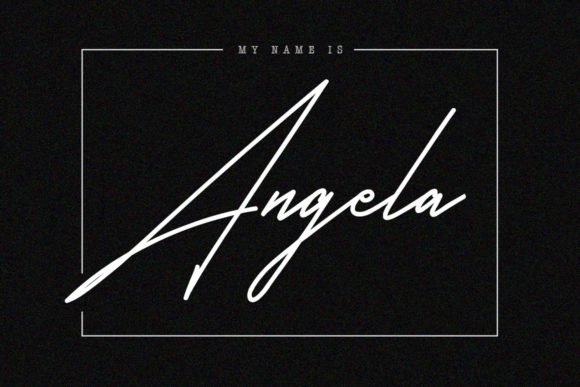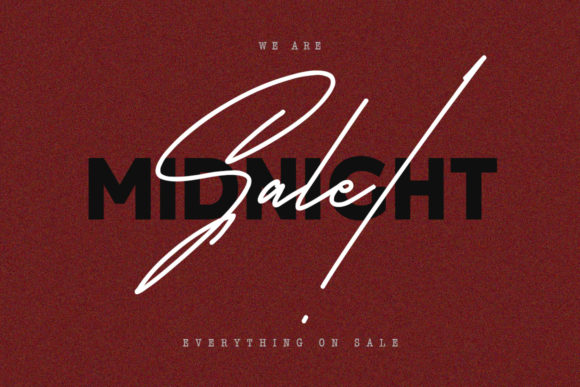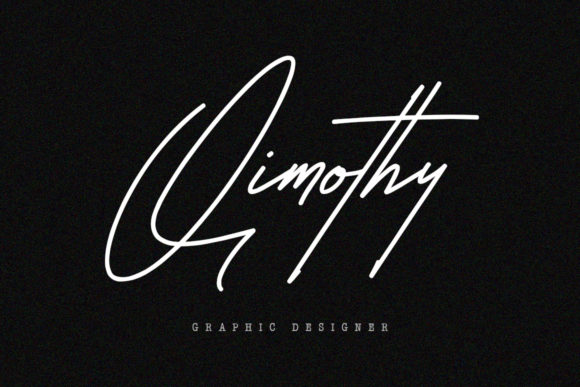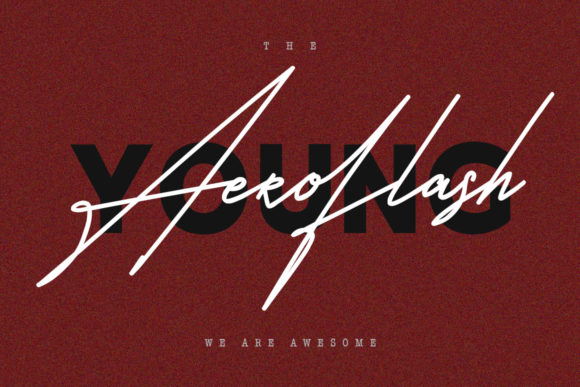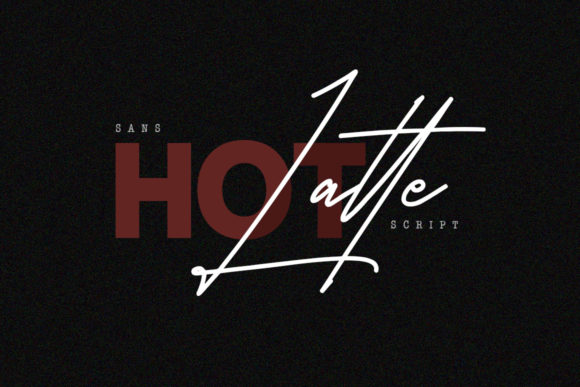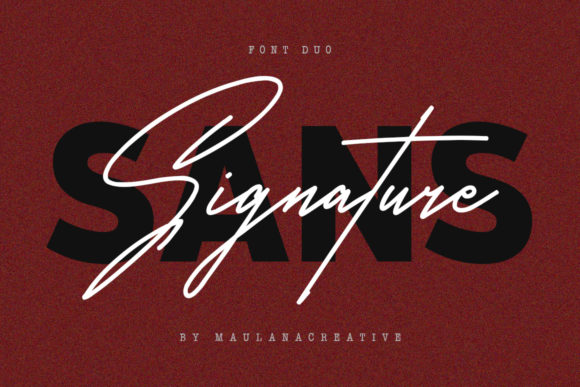
Satilas Signature Font
About Satilas Signature Font
Satilas Signature is a beautiful duo font (sans and script). It looks beautiful on a variety of designs requiring a personalized style, such as wedding invitations, thank you cards, weddings, greeting cards, logos and so on.